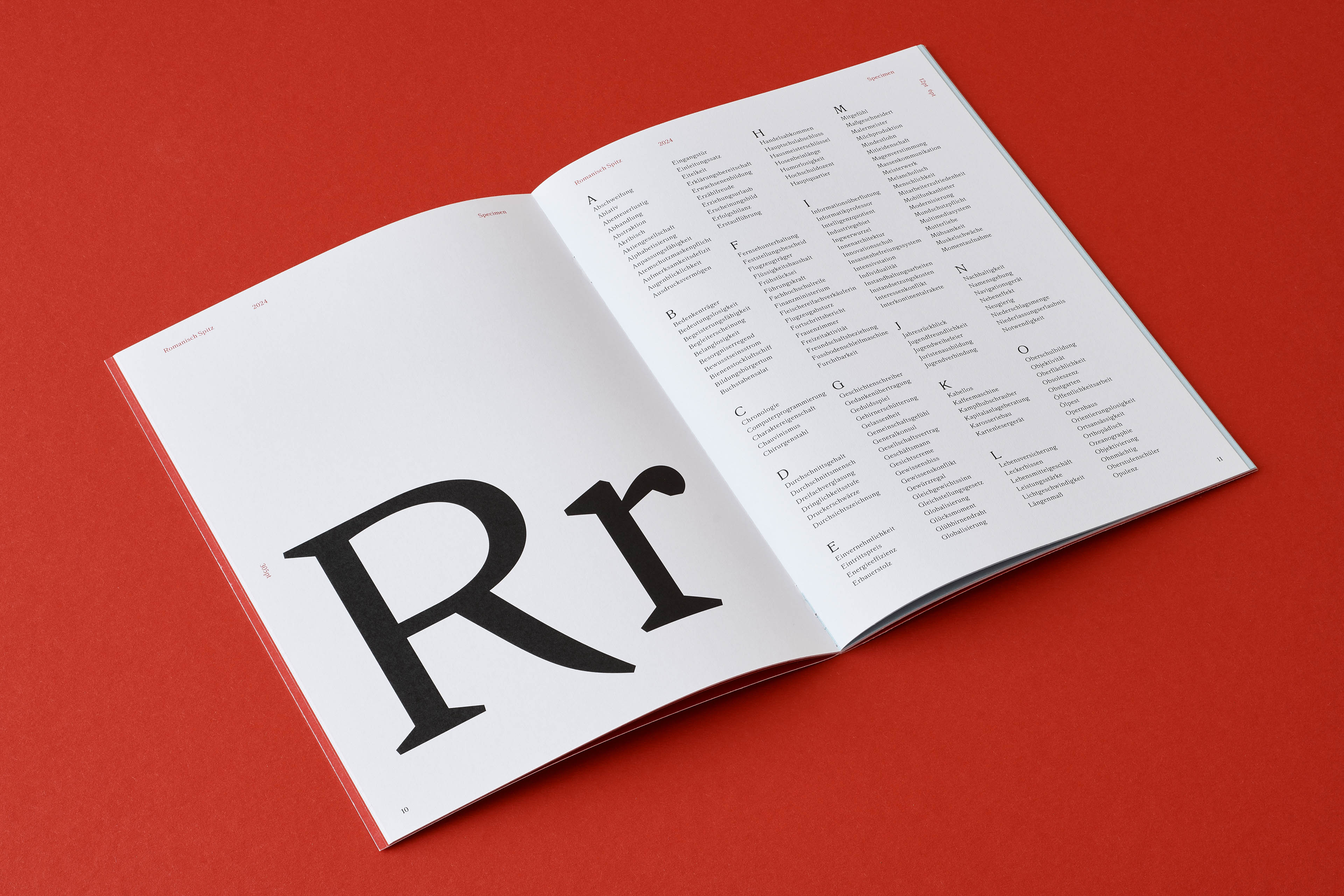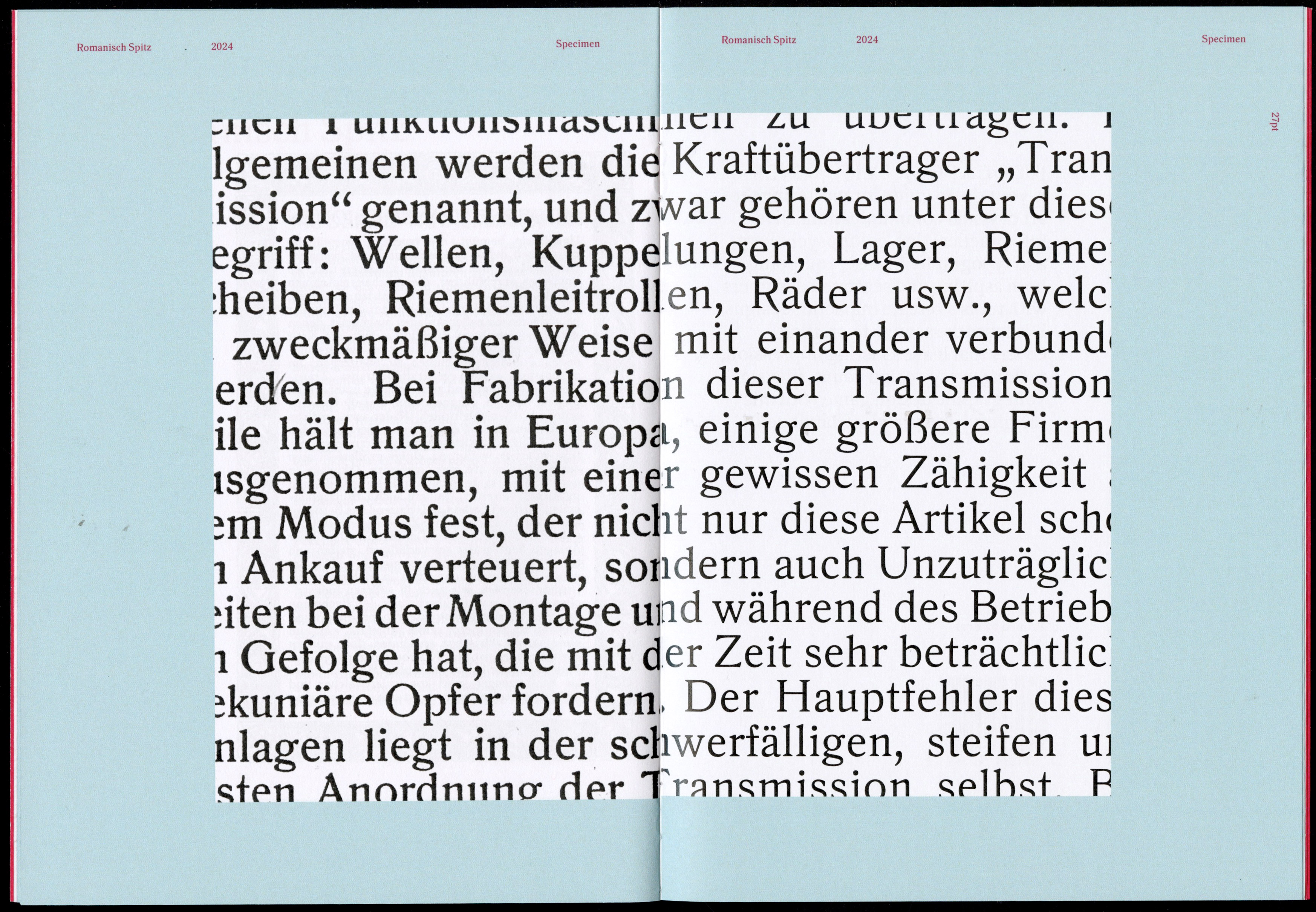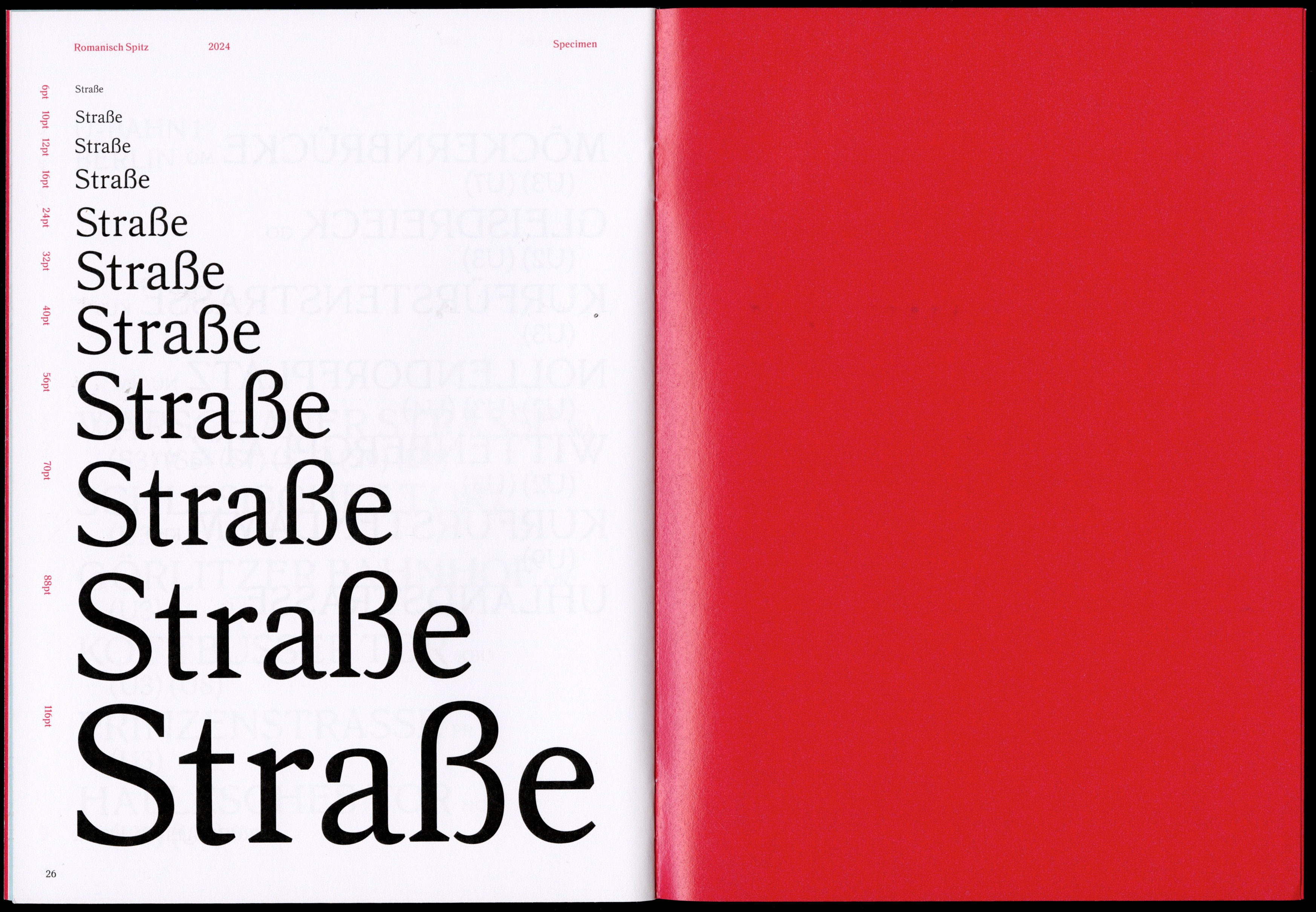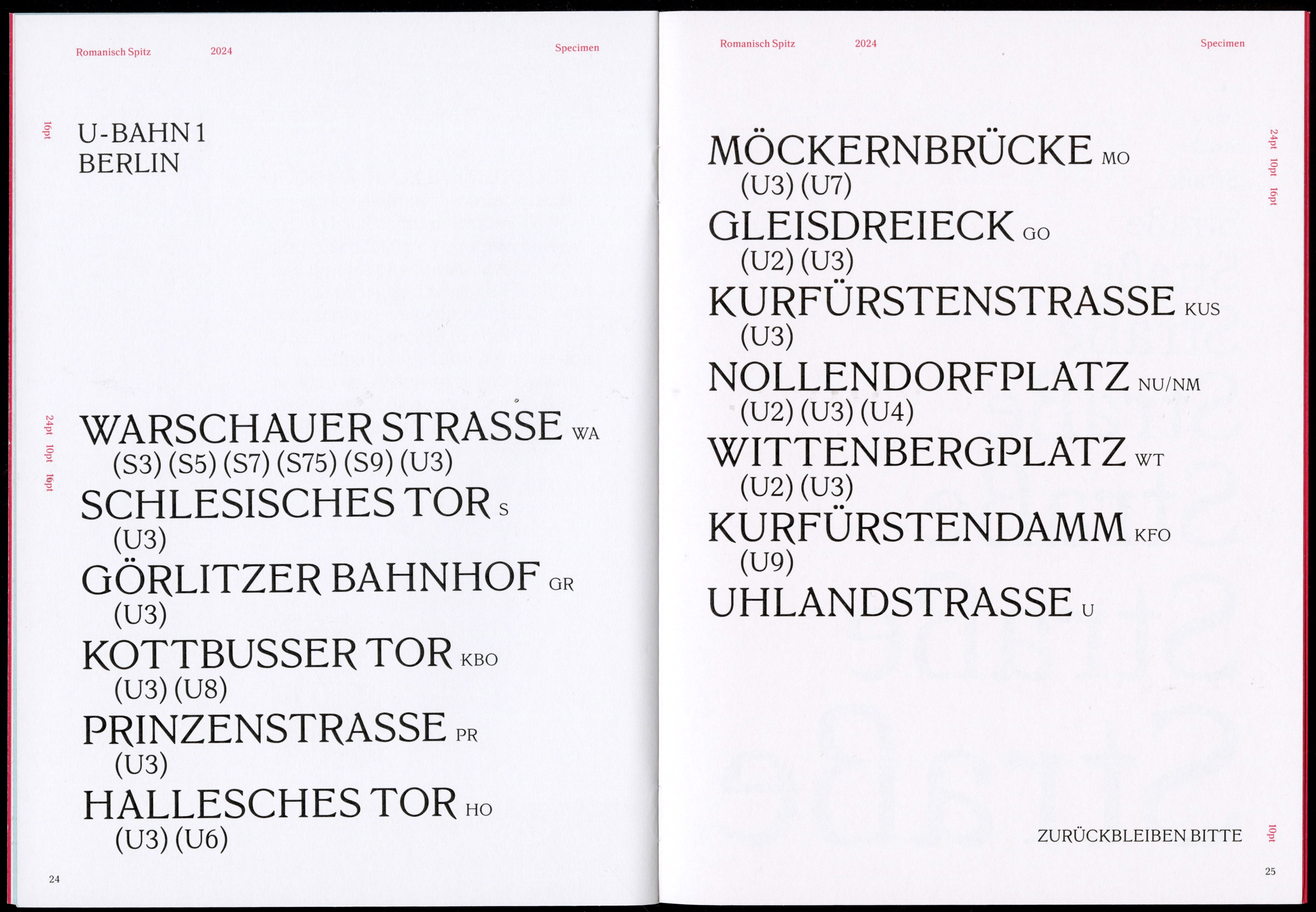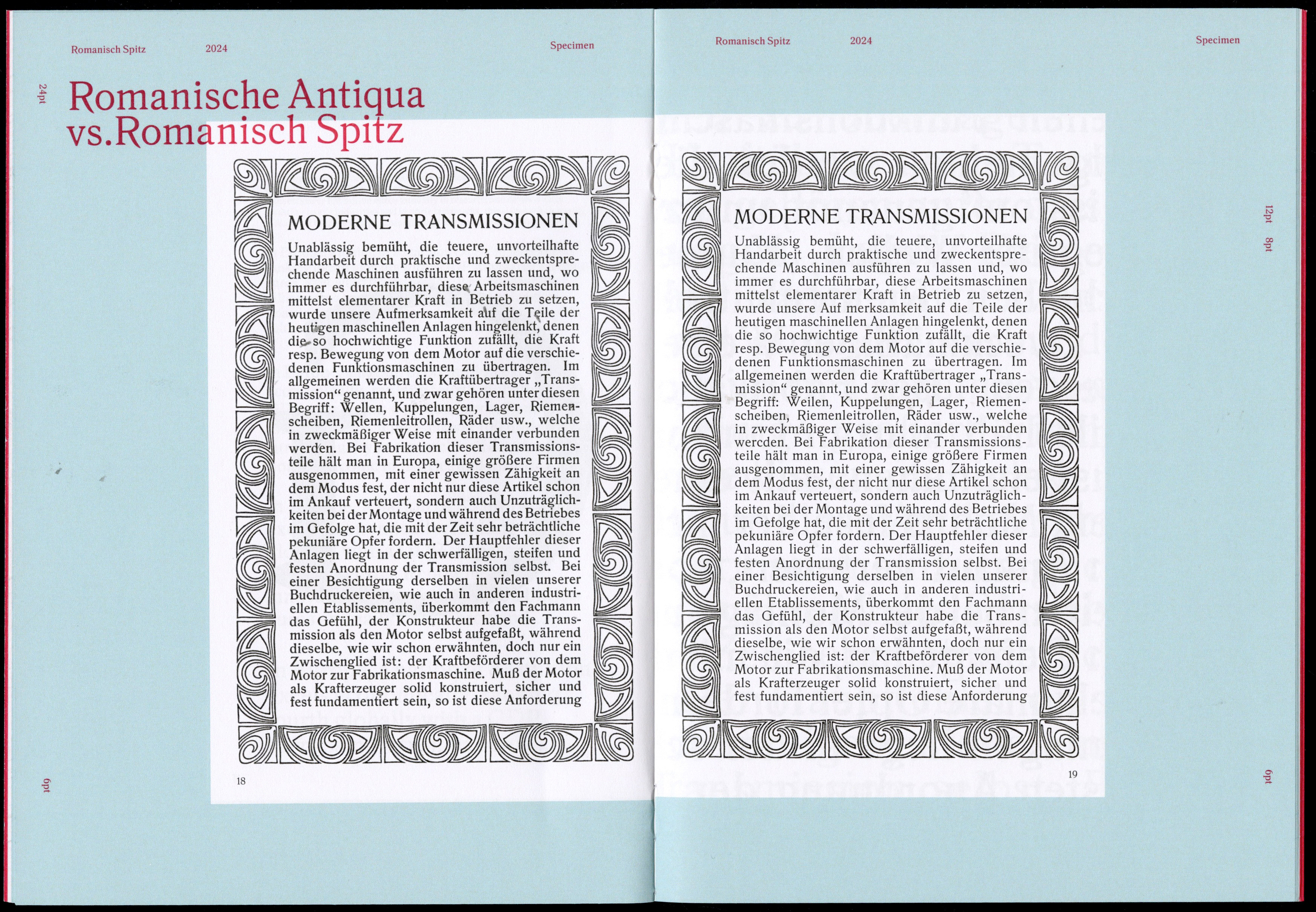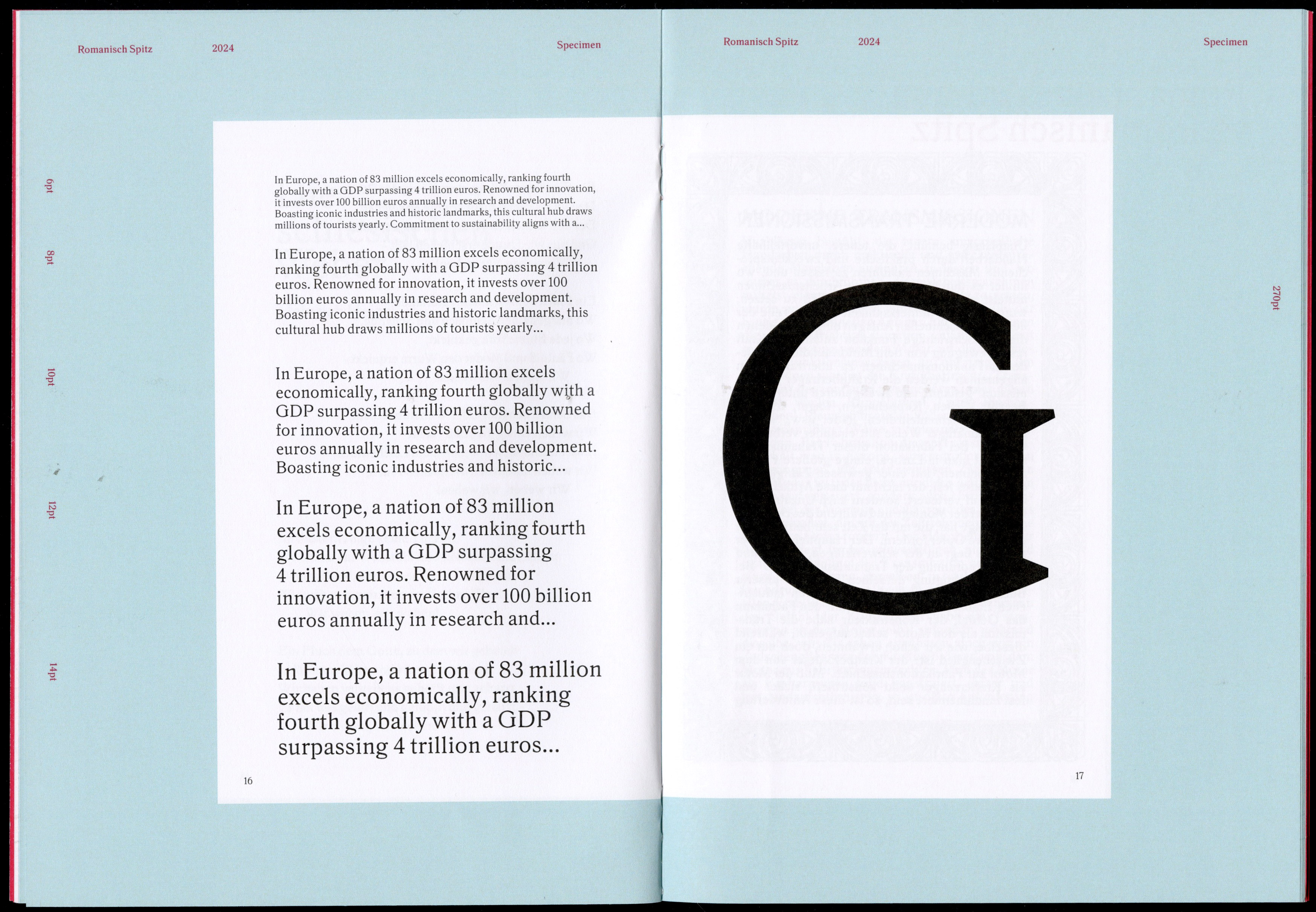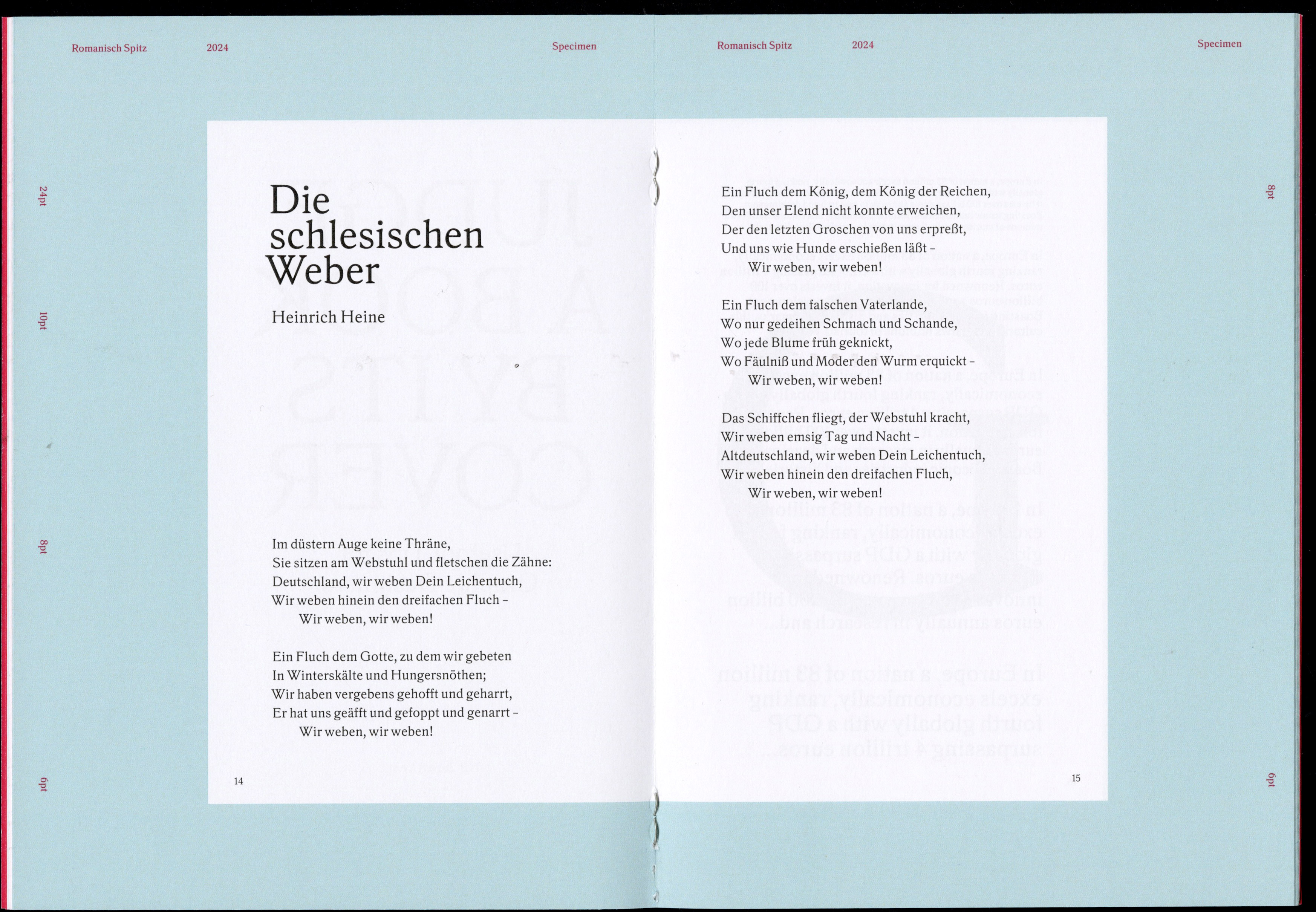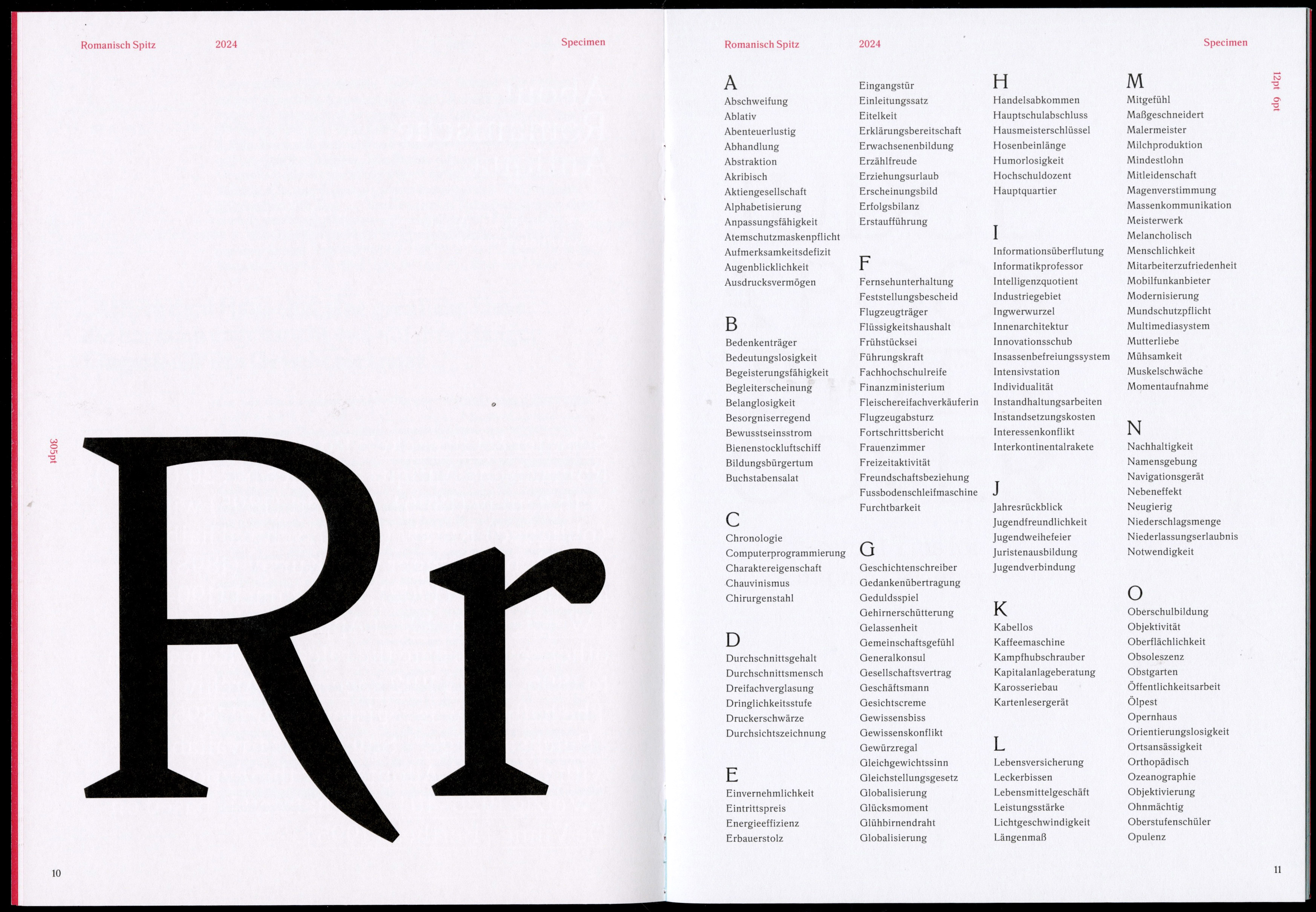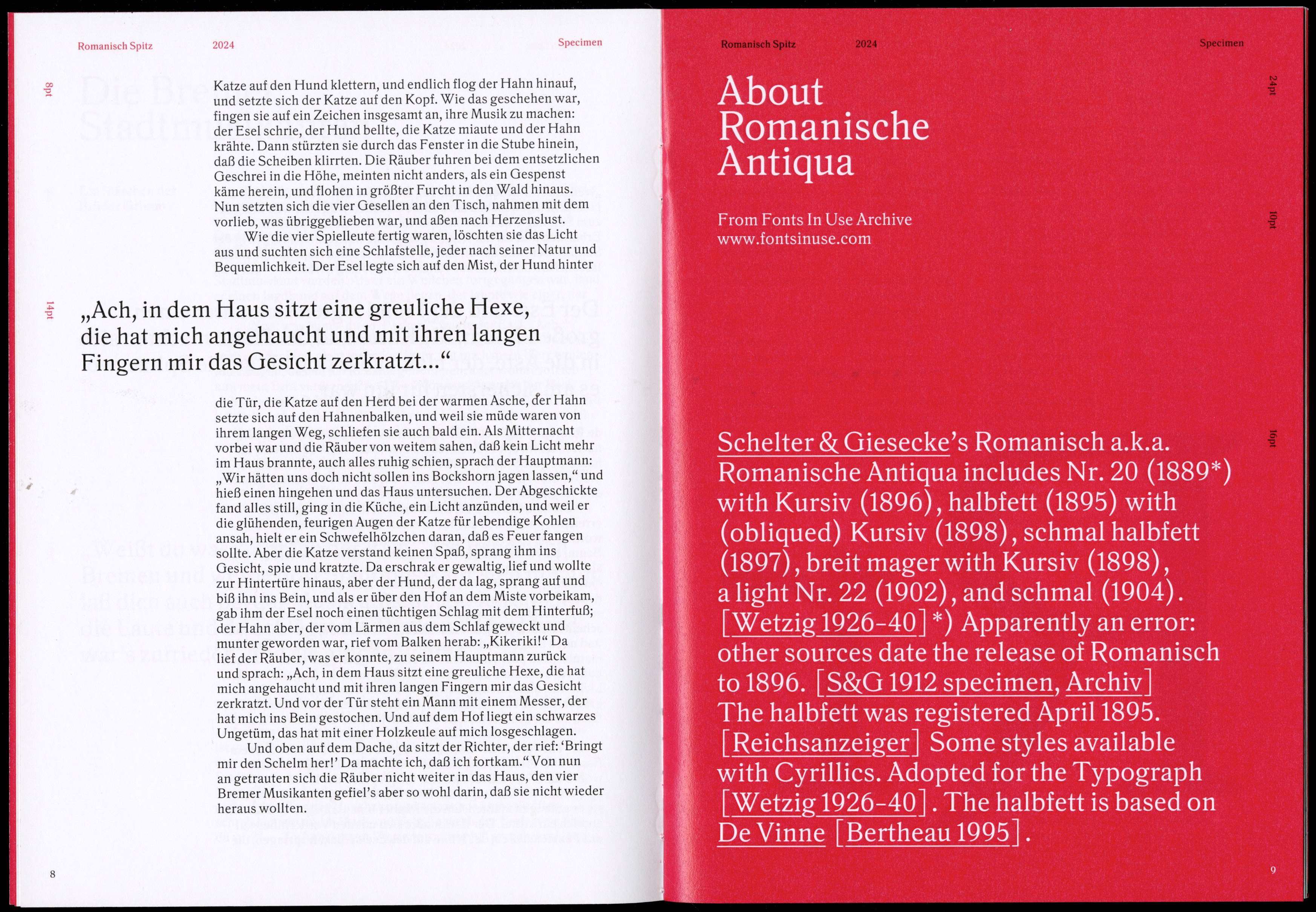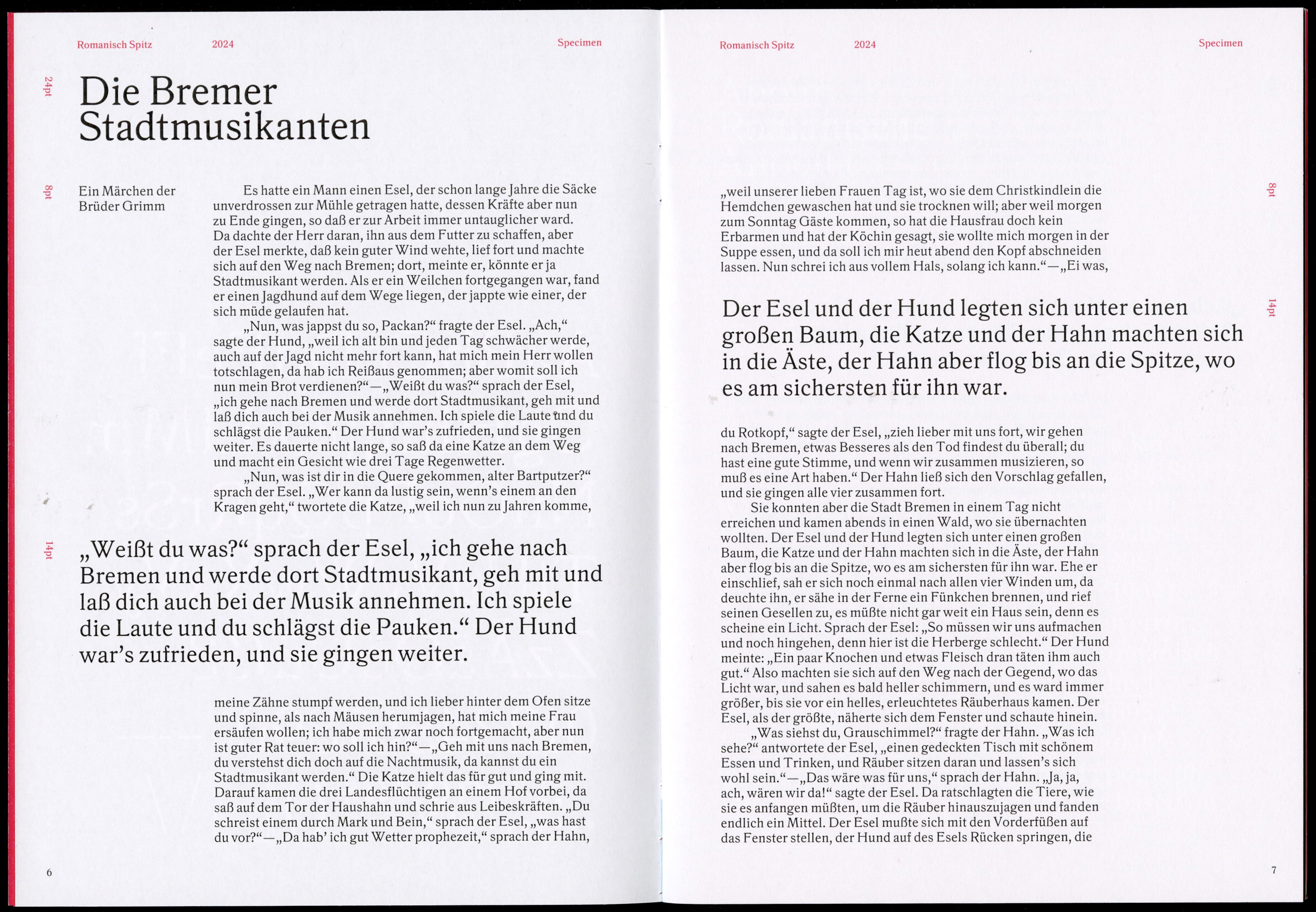
Romanisch Spitz is a contemporary serif typeface that combines classical proportions with modern functionality. Designed for versatility across print and digital media, it offers excellent readability in both body text and display applications. The typeface features carefully crafted letterforms that maintain clarity at various sizes while providing distinctive character in larger settings. Romanisch Spitz is ideal for editorial design, branding, and any project requiring a sophisticated yet approachable serif face.
Typeface: Romanisch Spitz
Designed by: Nir Zabari Yenni
Mentored by: Alice Savoie (ECAL)
Year: 2024
Languages: Latin
Upon arriving in Switzerland from Tel Aviv, the first place I took my family was the Paper Museum in Basel. I tried to infuse them with my love for letters and my enthusiasm for print in general. Already at the entrance, we stood amazed in front of the large waterwheel that operated this enormous machine. It seemed that every room we entered during the visit held a secret and made us feel as if we were inside the belly of a horrid fairytale. In every corner, there was a secret that needed deciphering. So we climbed up the stairs, reached hidden rooms, and met people who seemed frozen in time. In our wanderings, we reached the attic, and there, to our astonishment, a library arose. We sat there like three monks in “The Name of the Rose,” opened dusty books, and conjured up cruel wizards and princesses imprisoned in magical castles.
Romanisch Spitz embodies all these experiences. A sharp, angular typeface, hiding in its essence the cruelty of the Inquisition and the beauty of a young maiden’s hair. When you play with it a bit, when you knead it, it brings with it the scent of the Grimm Brothers with their innocence, beauty, and cruelty to our modern era, which is still cruel but in different and various ways. “Romanisch Spitz” is a contemporary typeface that can serve both as titles and as body text, in medieval tales and in self-help books for the new age. A typeface, which was once upon a time was used for church pamphlets and, in its updated version, can be used on a poster for a Pearl Jam concert or as the title font for a Netflix series.
Schelter & Giesecke’s Romanisch a.k.a. Romanische Antiqua includes Nr. 20 (1889*) with Kursiv (1896), halbfett (1895) with (obliqued) Kursiv (1898), schmal halbfett (1897), breit mager with Kursiv (1898), a light Nr. 22 (1902), and schmal (1904). [Wetzig 1926–40]*) Apparently an error: other sources date the release of Romanisch to 1896. [S&G 1912 specimen, Archiv] The halbfett was registered April 1895. [Reichsanzeiger] Some styles available with Cyrillics. Adopted for the Typograph [Wetzig 1926–40]. The halbfett is based on De Vinne [Bertheau 1995].